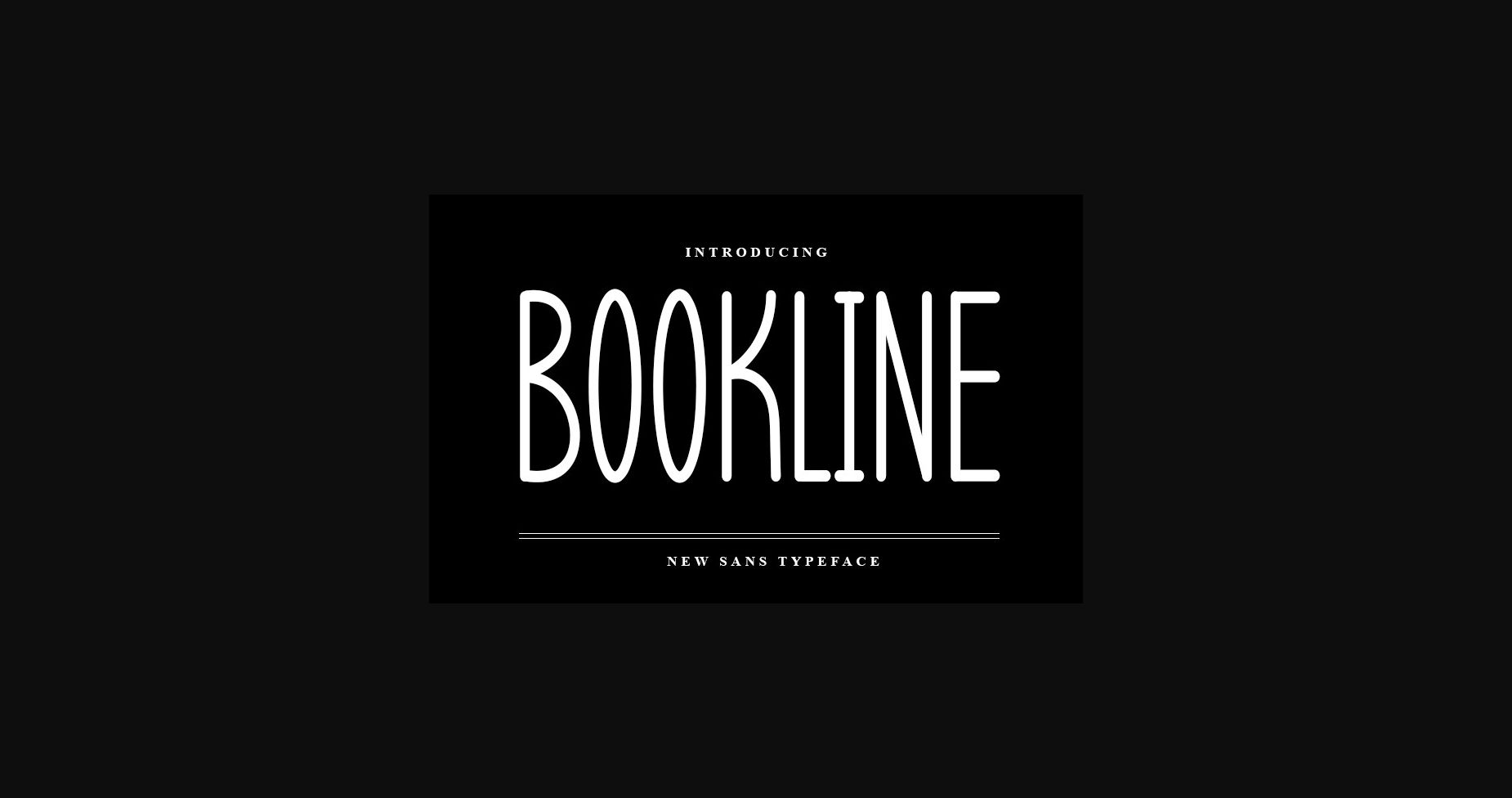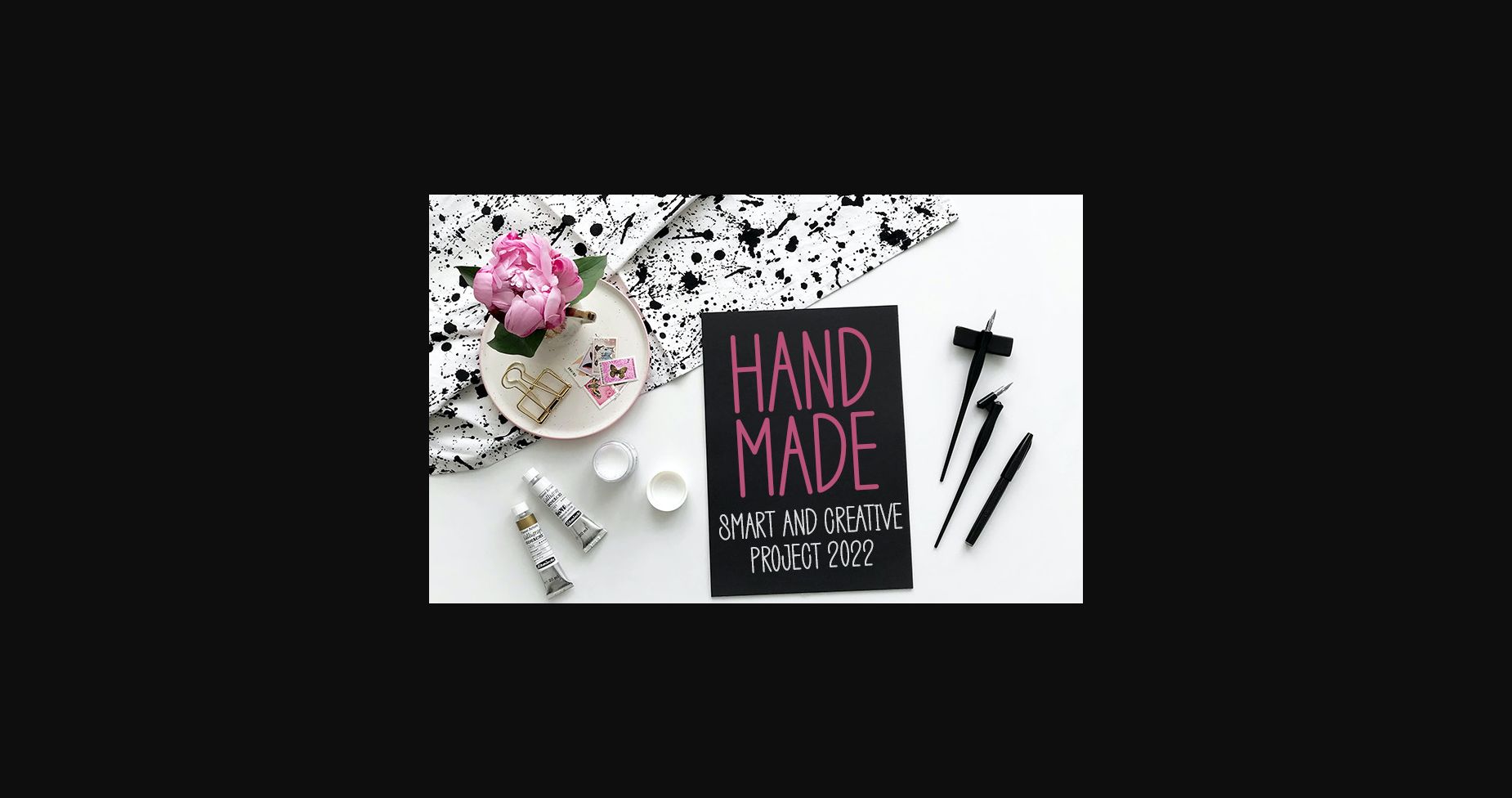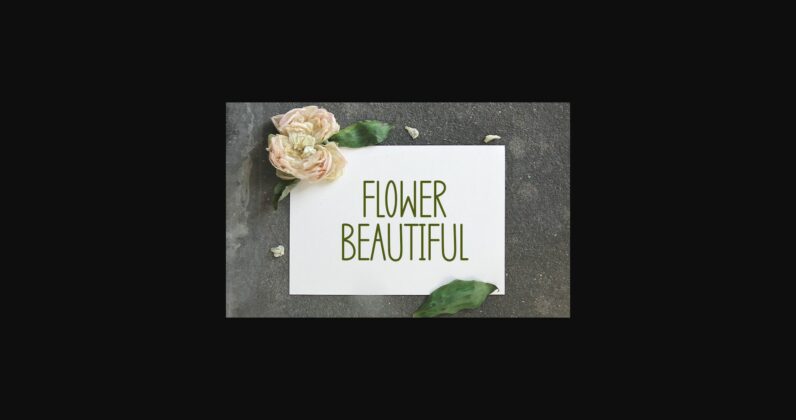
About Bookline Font
Bookline is a playful and smart-looking sans serif font. It is the best choice for creating eye-catching logos, branding, and quotes. Every letter has a unique and beautiful touch, which will make your design come alive!